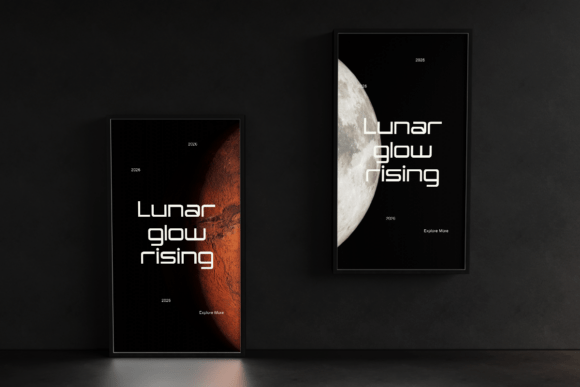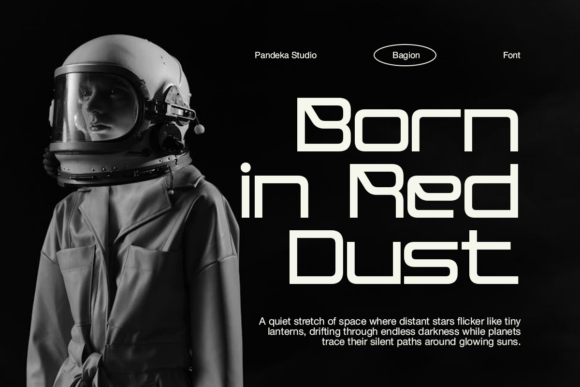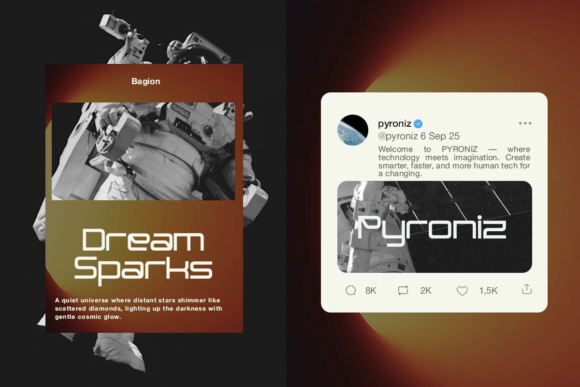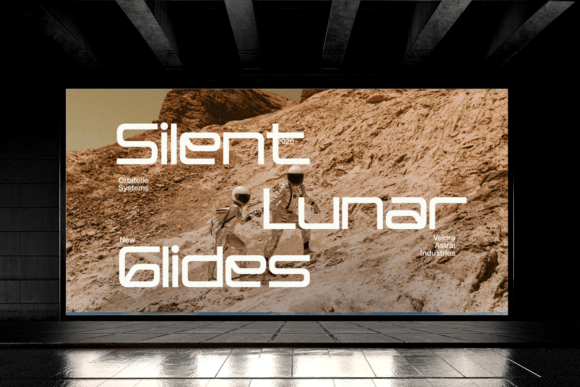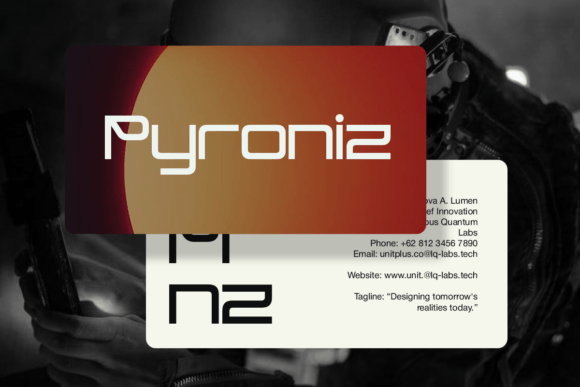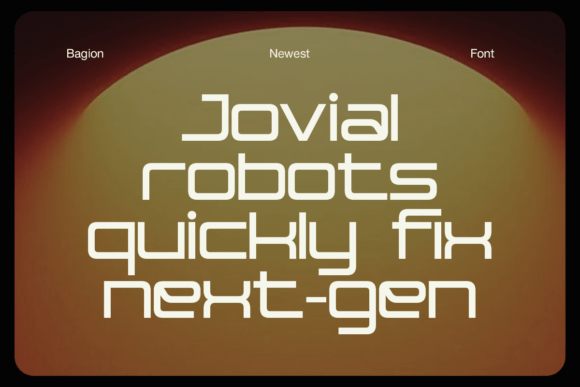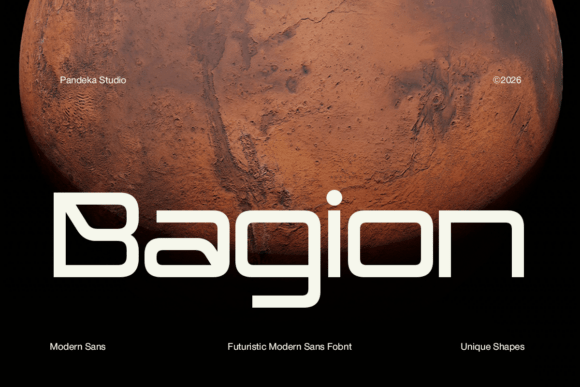
Designing the Future: The Bagion Font Revolution
Have you ever stared at a blank screen, searching for the perfect font to elevate your design? The frustration of scrolling through endless options can be overwhelming. But what if you stumbled upon a font that not only speaks to your creative vision but also transports you to a futuristic world?
Enter the Bagion Font, a sleek and modern typeface designed to capture the essence of technology and innovation. With its geometric construction and clean structure, Bagion Font is the perfect tool for designers who want to create a bold and forward-looking visual identity. Whether you’re working on a futuristic poster, a cinematic title, or a startup branding, Bagion Font delivers a modern appearance with excellent readability.
Bagion Font Key Features
- Font Family: Bagion is a sans-serif font family designed for digital use, available in multiple weights and styles.
- Unique Characteristics: Bagion Font features a unique blend of modern and minimalist design elements, making it ideal for digital interfaces, branding, and publishing.
- Language Support: Bagion Font supports a wide range of languages, including Latin, Cyrillic, Greek, and many more, making it a versatile font for global applications.
Bagion Font Review
Overall, I think the Bagion font is a solid choice for designers. Here are some of its strengths and weaknesses.
- Unique design: The Bagion font has a distinctive and modern look that can help a design stand out.
- Highly legible: This font is well-suited for body text, with clear and easy-to-read lines.
- Good for headings: The Bagion font is versatile and can be used for headings and titles, adding a touch of elegance.
- Limited character set: The Bagion font has a relatively small character set, which can be a limitation for designers who need to use special characters.
- Not suitable for small text: Due to its modern design, the Bagion font can be difficult to read in small sizes.
- May not be suitable for certain industries: The Bagion font may not be the best choice for industries that require a more traditional or conservative look.
The Bagion font is a good choice for designers who want a modern and unique look for their projects. However, it may not be suitable for all types of projects, and designers should carefully consider its limitations before using it.
Getting the Most Out of Bagion Font
For optimal results, use Bagion Font in combination with bold or italic styles to create emphasis and visual interest.
Experiment with different font sizes and colors to create a unique and eye-catching design.
Bagion Font is perfect for:
- Body text in creative projects
- Designing logos and branding materials